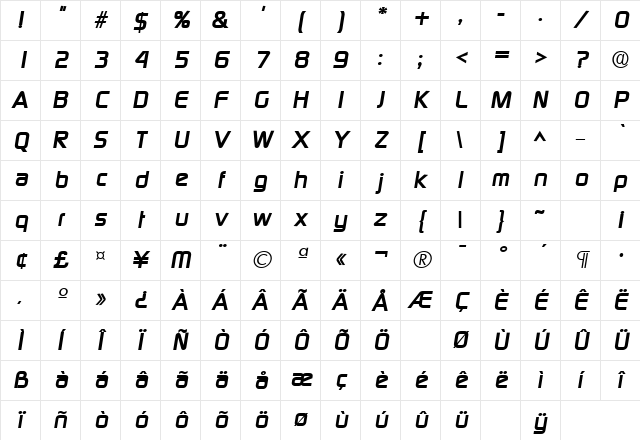
Digital Bold Italic Free Font
Digital Bold Italic
Design Context for Digital
Digital has a distinctly futuristic character, with geometric precision and clean angles that feel at home in technology, gaming, and sci-fi contexts. The slanted form adds forward momentum and visual energy. Its bold stroke weight gives it real presence on the page.
Pro Tip: Try Digital with generous letter-spacing in UI labels and navigation - the geometric forms benefit from room to breathe.